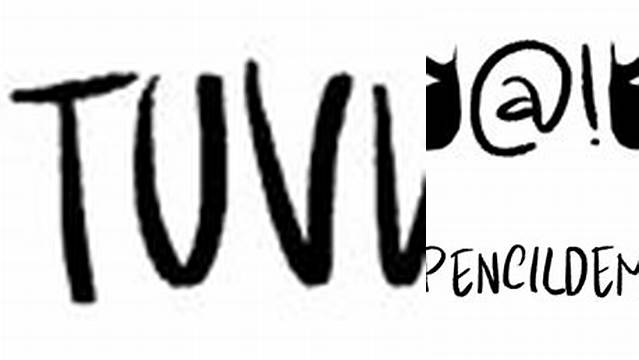
Kapsalon Pencil Regular: Free Font Download & Usage Guide
Hey guys! Ever stumbled upon a font that just clicks? A font that feels both familiar and fresh, like a perfectly worn-in pair of jeans or that favorite coffee shop around the corner? If you're nodding your head, then you're in for a treat. Today, we're diving deep into the wonderful world of Kapsalon Pencil Regular, a free font that's making waves in the design community for its charming, hand-drawn aesthetic. This isn't just another font; it's a tool that can inject personality, warmth, and a touch of whimsy into your projects. Whether you're a seasoned designer, a budding creative, or simply someone who appreciates beautiful typography, Kapsalon Pencil Regular deserves a spot in your font library.
What Makes Kapsalon Pencil Regular So Special?
So, what's the buzz all about? What makes Kapsalon Pencil Regular stand out from the crowd of countless fonts vying for your attention? The answer lies in its beautifully imperfect, hand-drawn character. This font doesn't strive for sterile perfection; instead, it embraces the natural variations and subtle quirks that come with handwriting. Imagine the look and feel of a lovingly crafted handwritten note, the kind that instantly brings a smile to your face. That's the essence of Kapsalon Pencil Regular. The slightly uneven lines, the gentle curves, and the overall organic feel all contribute to a font that feels incredibly human and approachable. This makes it a fantastic choice for projects where you want to convey a sense of authenticity, warmth, and personal connection. Forget those cold, clinical fonts that scream corporate jargon – Kapsalon Pencil Regular is here to add a touch of heart to your designs. Think about it: in a world increasingly dominated by digital communication, the handwritten touch is a powerful way to stand out and create a genuine connection with your audience. Using this font is like giving your designs a friendly hug, instantly making them more relatable and engaging. The beauty of Kapsalon Pencil Regular also lies in its versatility. While it excels at adding a touch of personality to informal projects, it's also surprisingly adaptable to more formal contexts. The key is to use it strategically, pairing it with other fonts and design elements that complement its unique character. For example, you could use it for headings and subheadings to add visual interest, while using a more traditional serif font for body text to ensure readability. Or, you could use it for branding materials for a small business that wants to project a friendly and approachable image. The possibilities are truly endless.
Where Can You Use Kapsalon Pencil Regular?
Okay, so you're intrigued by Kapsalon Pencil Regular and its hand-drawn charm. But where can you actually use it? The beauty of this free font lies in its versatility. It's a chameleon of typography, adapting beautifully to a wide range of projects and design styles. Let's explore some specific examples to get your creative juices flowing. First up, think about branding. If you're designing a logo or visual identity for a business that wants to project a friendly, approachable, and authentic image, Kapsalon Pencil Regular is a stellar choice. Imagine a logo for a local coffee shop, a handcrafted goods store, or a children's bookstore – the font's playful yet legible style would be perfectly at home. It instantly conveys a sense of warmth and personality, making the brand feel more relatable and human. Moving on to web design, Kapsalon Pencil Regular can add a unique touch to your website headers, navigation menus, and even body text (although for larger blocks of text, it's best used sparingly and paired with a more traditional font for optimal readability). It's particularly effective for websites that have a creative, artistic, or handmade aesthetic. Think blogs, portfolios, and online stores selling unique products. In the realm of print design, this font shines in projects like invitations, greeting cards, posters, and flyers. Its handwritten feel adds a personal touch that's perfect for conveying heartfelt messages or creating eye-catching promotional materials. Imagine a wedding invitation with elegant calligraphy paired with the friendly informality of Kapsalon Pencil Regular – a beautiful blend of classic and contemporary styles. And let's not forget social media! In today's visually saturated online world, standing out is crucial. Using Kapsalon Pencil Regular in your social media graphics and captions can help you grab attention and create a consistent brand aesthetic. It's a great way to inject personality into your posts and make them feel more engaging and relatable. The key takeaway here is that Kapsalon Pencil Regular is a versatile tool that can be used across a wide range of design mediums. Whether you're working on a digital project or a print piece, this font can add a touch of personality and authenticity that will help your designs stand out.
Tips and Tricks for Using Kapsalon Pencil Regular Effectively
So, you've downloaded and installed Kapsalon Pencil Regular, and you're eager to unleash its hand-drawn magic on your designs. That's fantastic! But before you dive in headfirst, let's talk about some tips and tricks that will help you use this free font effectively and make the most of its unique character. Like any design element, typography is all about balance and context. Using Kapsalon Pencil Regular strategically will yield the best results, while overuse or inappropriate application can diminish its impact. First and foremost, consider the overall tone and style of your project. Kapsalon Pencil Regular shines in projects that aim for a friendly, approachable, and authentic feel. It's a natural fit for branding materials for small businesses, creative websites, handcrafted goods, and personal projects. However, it might not be the best choice for formal or corporate contexts that demand a more polished and professional look. Think about pairing Kapsalon Pencil Regular with other fonts that complement its hand-drawn aesthetic. A classic pairing is to use it for headings and subheadings while using a more traditional serif or sans-serif font for body text. This creates a visual hierarchy and ensures readability, especially for longer blocks of text. For example, you could pair it with a clean and modern sans-serif like Open Sans or a timeless serif like Garamond. Experiment with different font pairings to find the combination that best suits your project. Another important aspect to consider is font size and spacing. Kapsalon Pencil Regular, with its slightly irregular lines and organic feel, can sometimes appear smaller than other fonts at the same point size. You might need to increase the font size slightly to ensure readability, especially in smaller sizes. Pay attention to the spacing between letters and words (kerning and tracking) to optimize the overall visual appearance. A little tweaking can go a long way in making the font look its best. When using Kapsalon Pencil Regular in digital designs, such as websites and social media graphics, make sure to test the font's rendering across different browsers and devices. Font rendering can vary slightly depending on the platform, so it's essential to ensure that your text looks consistent and legible across all devices. And finally, don't be afraid to experiment! Typography is an art form, and there's no one-size-fits-all approach. Play around with different colors, sizes, weights, and combinations to discover the unique ways that Kapsalon Pencil Regular can enhance your designs. The more you experiment, the more comfortable you'll become with its nuances and the better you'll be able to leverage its potential. So go ahead, get creative, and let Kapsalon Pencil Regular add a touch of hand-drawn charm to your next project!
Kapsalon Pencil Regular: A Font That Speaks Volumes
In conclusion, Kapsalon Pencil Regular is more than just a free font; it's a design asset that can infuse your projects with personality, warmth, and a touch of handcrafted charm. Its beautifully imperfect, hand-drawn style sets it apart from the crowd of sterile, cookie-cutter fonts, making it an ideal choice for projects that aim to connect with audiences on a personal level. Whether you're designing a logo for a local business, crafting a heartfelt invitation, or creating eye-catching social media graphics, Kapsalon Pencil Regular offers a unique and versatile typographic voice. Its adaptability allows it to shine in a wide range of applications, from branding and web design to print materials and beyond. The key to using Kapsalon Pencil Regular effectively lies in understanding its character and context. Pairing it with complementary fonts, paying attention to spacing and size, and considering the overall tone of your project will help you maximize its impact. And most importantly, don't be afraid to experiment and explore the creative possibilities it offers. By embracing its quirks and celebrating its unique qualities, you can unlock a world of design potential and create visuals that truly resonate with your audience. So, go ahead and add Kapsalon Pencil Regular to your font library. Download it, install it, and let its hand-drawn charm speak volumes in your next design endeavor. You might just find that it becomes your new go-to font for adding that perfect touch of personality and authenticity to your work. After all, in a world that's increasingly digital, the human touch is more valuable than ever, and Kapsalon Pencil Regular is the perfect font to help you capture that essence in your designs.